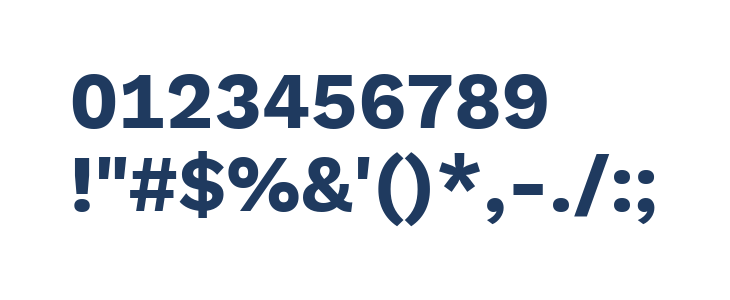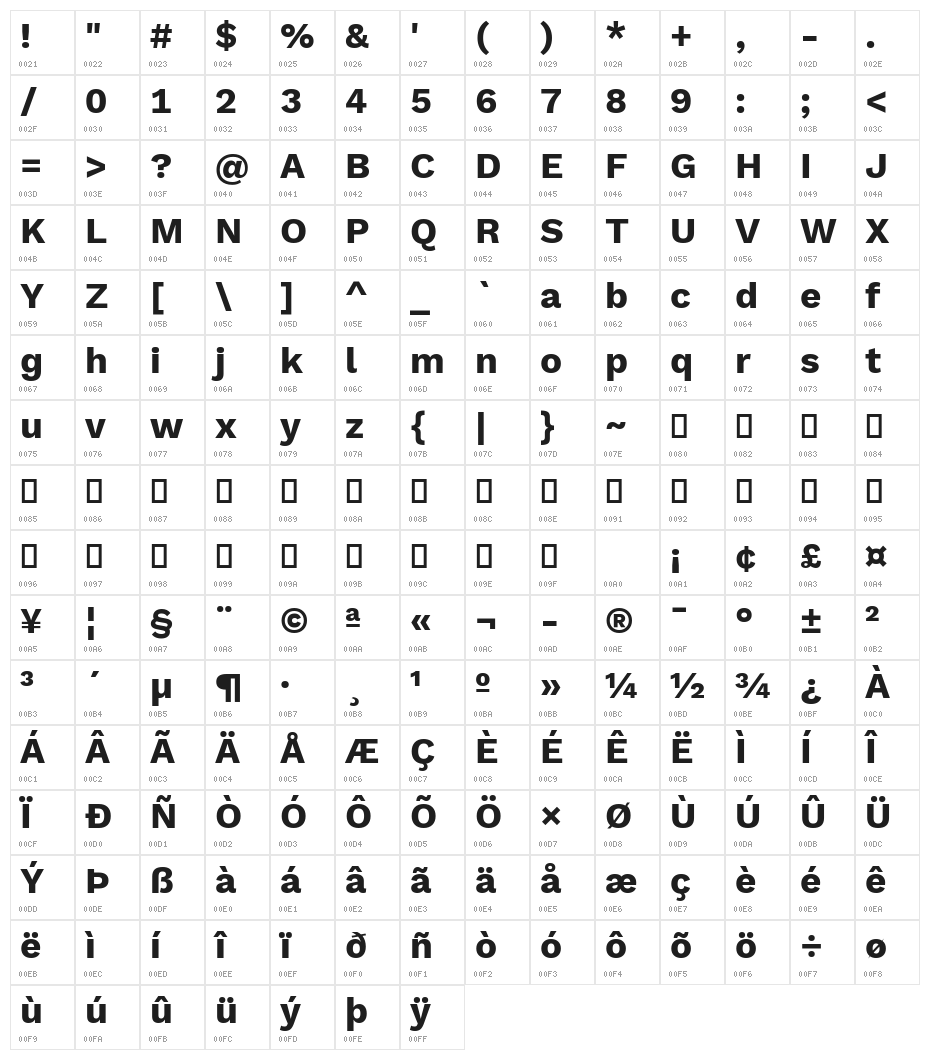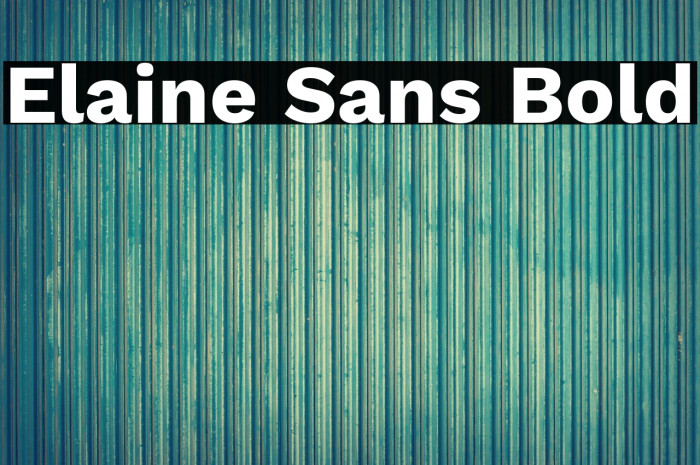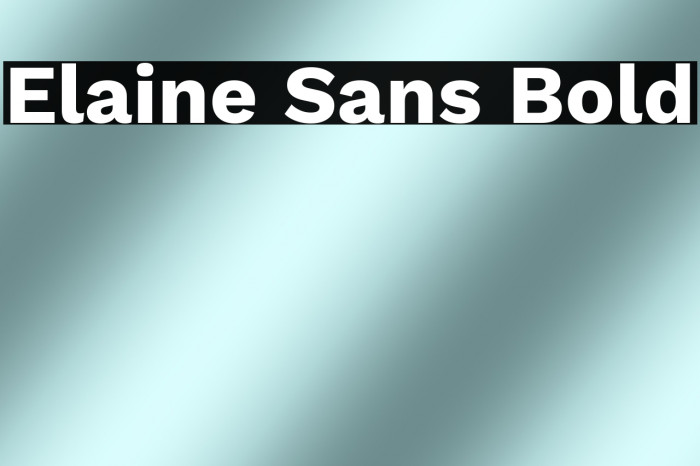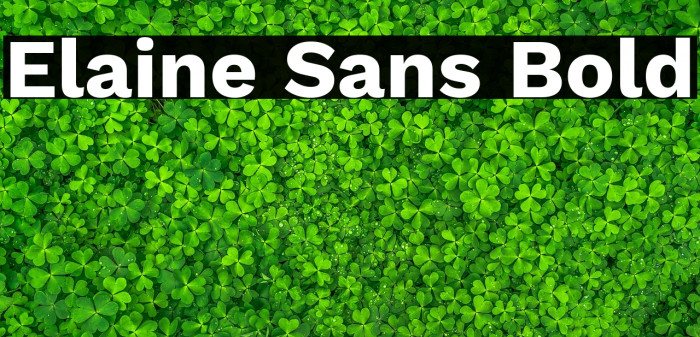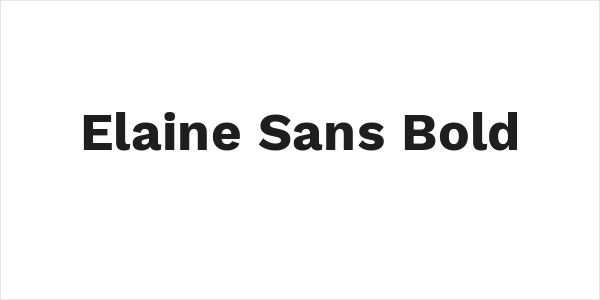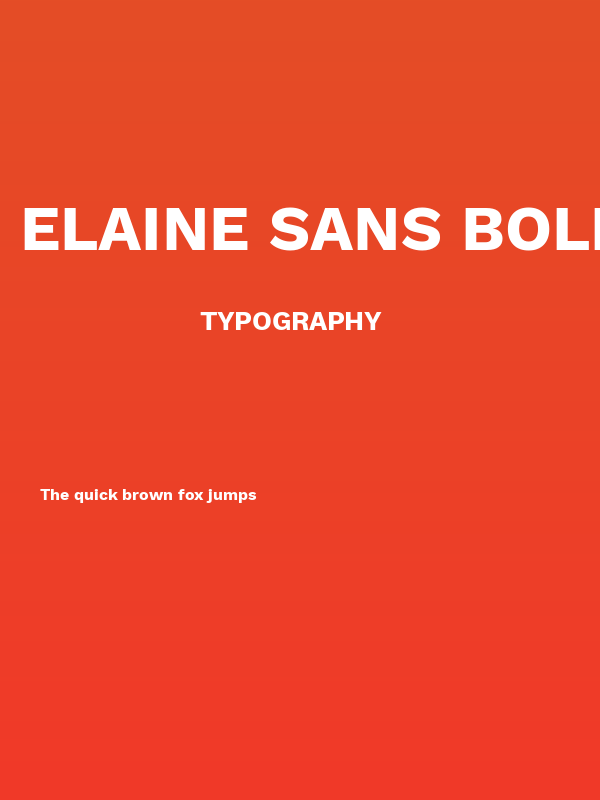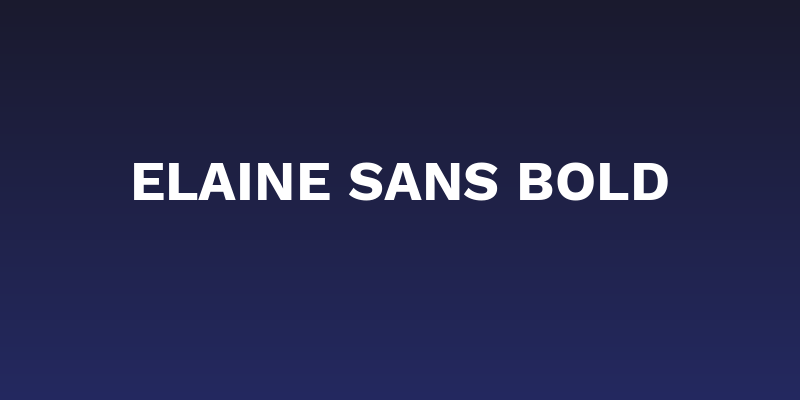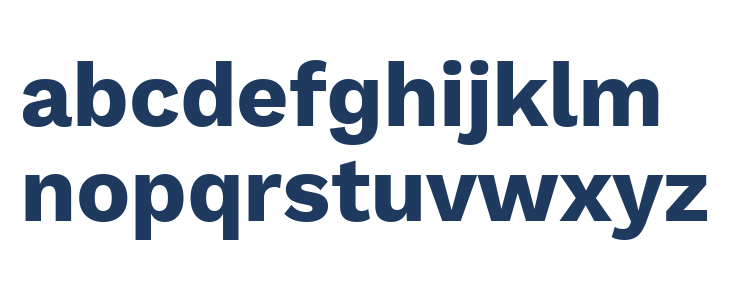
Elaine Sans Bold Font
Elaine Sans Bold Description
This typeface is characterized by its bold and strong appearance, featuring clean lines and a modern sans-serif style. The letters are evenly spaced, providing a balanced and harmonious look. The uppercase characters are uniform in height, while the lowercase letters maintain a consistent baseline, enhancing readability. The numerals are clear and distinct, making them suitable for various applications. Special characters are well-defined, adding versatility to the font. Its simplicity and clarity make it ideal for both digital and print media.
| Use Case | Headlines, Logos, Digital content |
| Proposed Projects | Ideal for branding, advertising, headlines, and digital content where clarity and impact are essential. |